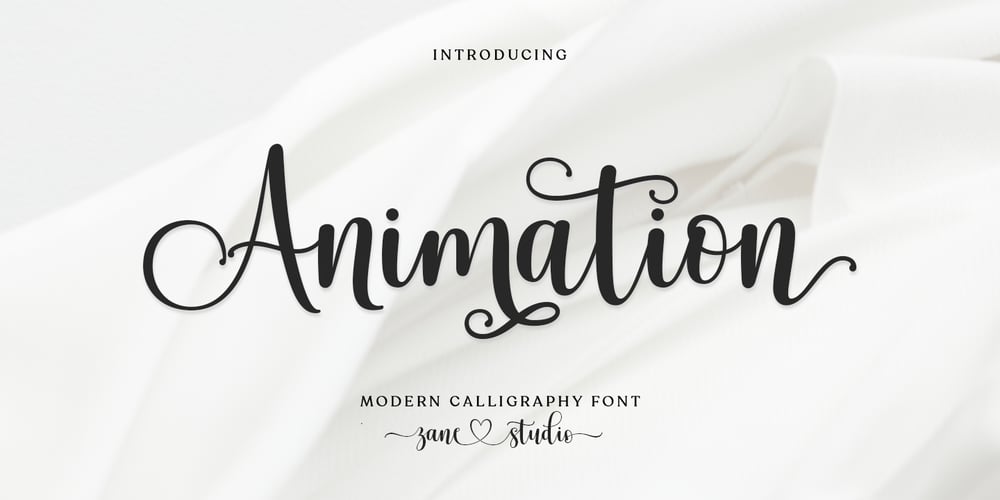
Animation Script
Animation Script font
Animation Script Font Family was designed by Mur Zani and published by Zane Studio. Animation Script contains 1 styles and family package options. Animation Script is sleek, sleek, modern and classic hand-drawn wavy calligraphy, created to meet the needs of your next design project.Animation Script, can be used for various purposes. such as titles, signatures, logos, correspondence, Business Cards, Quotes, wedding invitations, letterheads, signage, labels, bulletins, posters, badges, etc.Animation Script Contains a complete collection of lowercase & uppercase letters, various kinds of punctuation, numbers, and multilingual support. The font also contains several ligatures, style alternatives, and Style Sets, for those of you who are open type, or via software panels that support glyphs, such as Adobe Photoshop; Adobe Illustrator, Corel Draw, and Adobe InDesign.